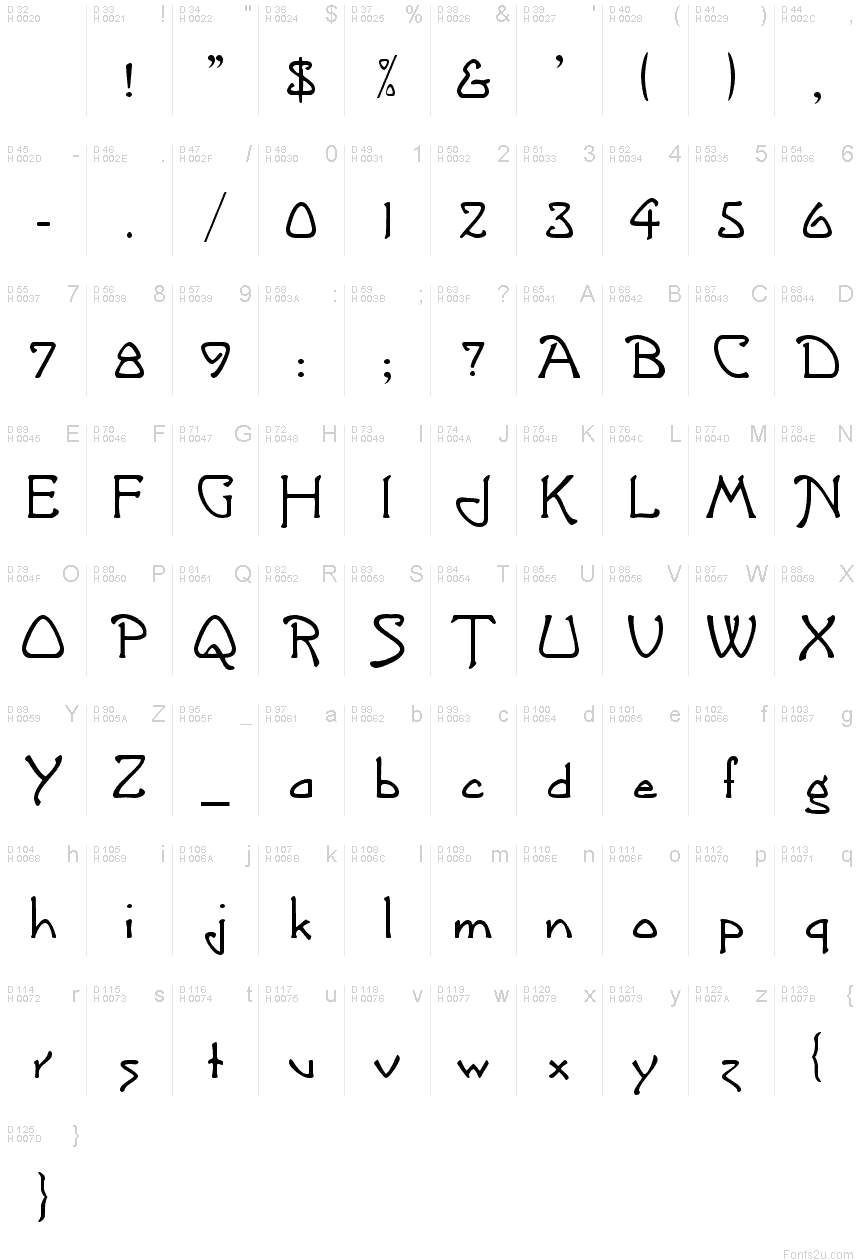
Argonaut
Argonaut font by SWFTE International is a free retro display typeface with a wonderfully offbeat, hand-drawn energy. Its tall, wandering letterforms and inky, slightly uneven strokes feel like they were sketched on a storyboard for a quirky sci‑fi film or nautical adventure. The rhythm is loose but readable, giving headlines a playful wobble that still holds together in a clean, cohesive word shape.
Using Argonaut, titles instantly gain a storybook, exploratory mood that shines on posters, indie game logos, event branding, album art, zines, and whimsical product packaging. This free font works beautifully when you set it large and give it space to breathe, then pair it with a simple geometric sans serif for body text to keep layouts grounded and easy to scan.